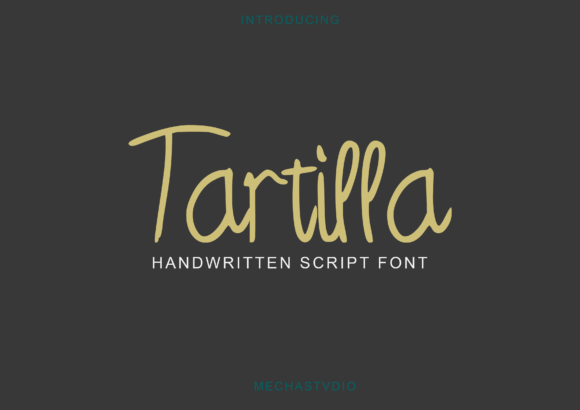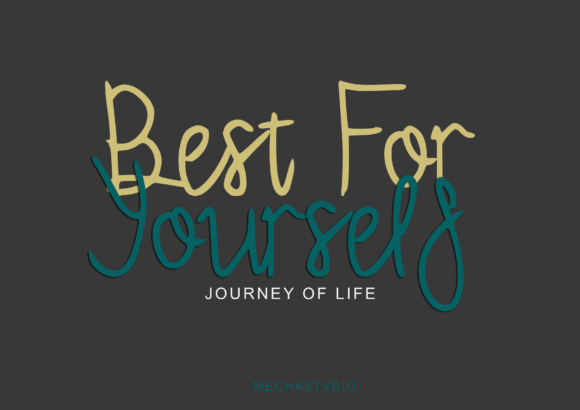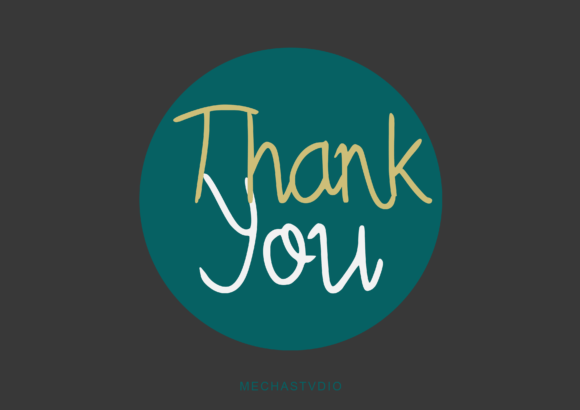
Tartilla Font
About Tartilla Font
“Tartilla: Where Beauty and Lightness Unite in Handwritten Typography
Introducing Tartilla, a beautiful and light handwritten font meticulously crafted to add a touch of natural spark to your design projects. With its effortless beauty and subtle elegance, Tartilla brings a unique feel and a stunning impact to any creative endeavor. Whether you’re working on logos, branding projects, quotes, posters, social media graphics, invitations, or any design project that seeks a blend of beauty and lightness, Tartilla seamlessly integrates into your designs, infusing them with an enchanting touch of creativity and style.
The allure of Tartilla lies in its delicate beauty and understated elegance, where each letter is carefully designed to exude grace and sophistication. Its flowing strokes and artistic detailing create a visual harmony that captures the essence of handwritten charm with a touch of effortless allure. Imagine your logos adorned with Tartilla’s graceful, refined letterforms, radiating with purity and creativity. Picture your quotes featuring its unadorned handwritten flair, instantly creating a sense of tranquility and warmth. With Tartilla, your designs emanate with a natural spark, making them visually captivating and emotionally resonant.
One of Tartilla’s standout features is its versatility. Its delicate beauty and lightness make it suitable for a wide array of design applications, from digital platforms to printed materials. Whether you’re crafting social media graphics or designing invitations for special occasions, Tartilla enhances your creations with its effortless charm, making them stand out with a unique blend of beauty and subtlety.
Moreover, Tartilla is more than just a font; it’s an embodiment of pure creativity and genuine expression. Its delicate beauty and lightness resonate with individuals who appreciate the beauty of simplicity and authenticity, making it a favorite among designers and enthusiasts seeking a font that effortlessly combines elegance and subtlety. Tartilla becomes a symbol of your creativity, allowing you to create designs that not only catch the eye but also touch the heart with a touch of natural grace.
In a world where beauty and lightness unite in handwritten typography, Tartilla helps you make a statement. It speaks the language of genuine creativity and sincere expression, resonating with those who appreciate the beauty of understated design and genuine allure. Whether you’re designing for digital platforms, branding, or special events, Tartilla becomes your trusted companion, guiding you toward design excellence.
So, why settle for ordinary when you can embrace the extraordinary with Tartilla? Let this beautiful and light handwritten font be the canvas for your creative expressions, and watch as your projects come to life with effortless beauty, subtle elegance, and enchanting charm. Let your creativity flow, and let Tartilla be the brushstroke that paints your ideas into visually captivating masterpieces, leaving a lasting impression on the hearts of your audience. Elevate your designs with Tartilla, where beauty and lightness unite in handwritten typography, and transform your creations into works of art that resonate with the pure spirit of genuine creativity.”